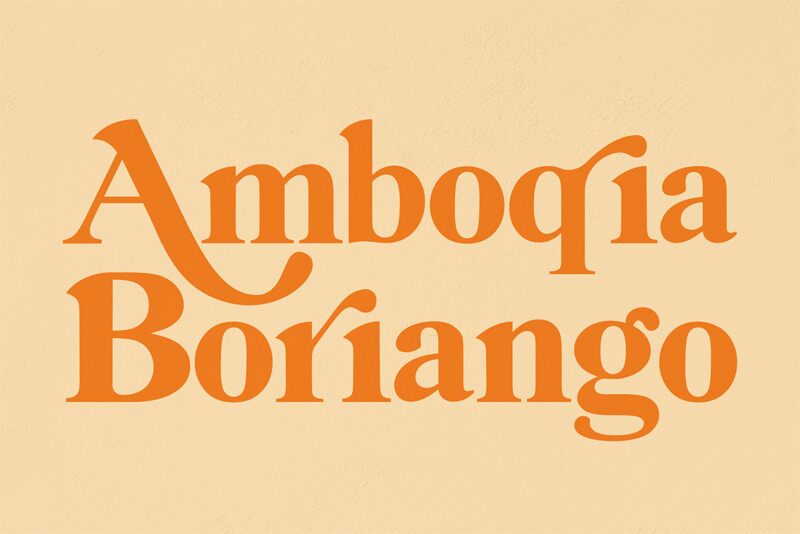
Amboqia Boriango
the latest style letters are perfect for wall displays, wedding invitations, social media post logos,
advertisements, product packaging, product designs, labels, photography, watermarks, invitations, stationery,
and any project that requires taste handwriting.